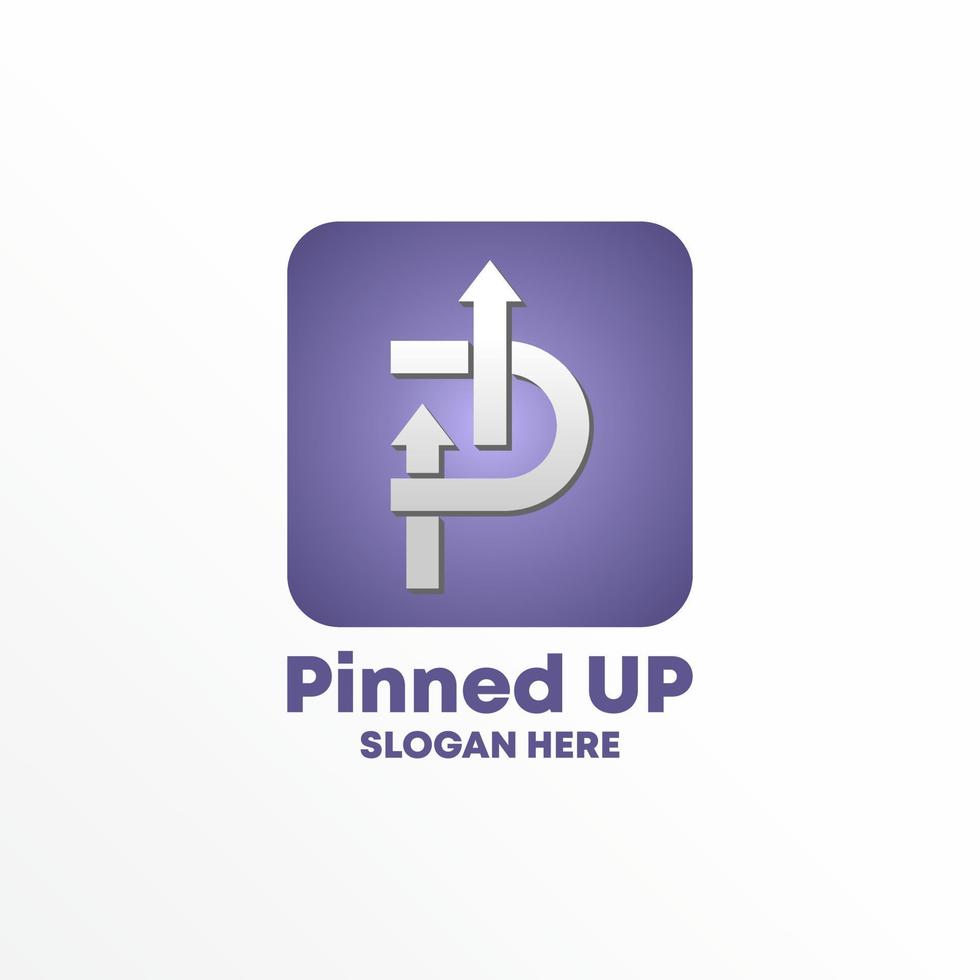
Letter or word P sans serif font with Arrow or up image graphic icon logo design abstract concept vector stock. Can be used as a symbol related to trading or initial Pro Vector